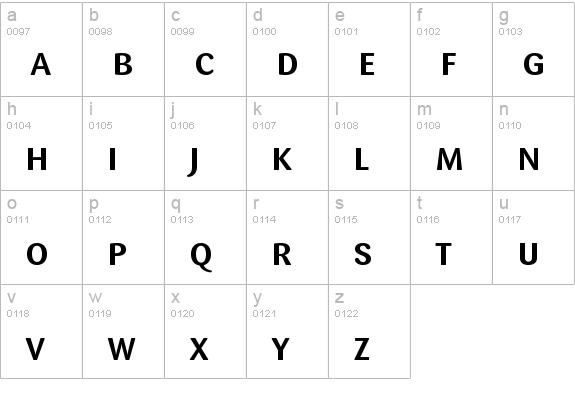
Sari-MediumCaps Font Details
Introducing Sari-MediumCaps, a stunning font that effortlessly balances elegance and modernity. This unique typeface is perfect for adding a touch of sophistication to any design project, whether it be a logo, branding materials, or editorial layouts. With its medium weight and perfectly crafted letterforms, Sari-MediumCaps strikes a harmonious balance between traditional and contemporary design elements. Each character is meticulously designed to exude a sense of timeless beauty, making it a versatile choice for any creative endeavor. One of the most appealing aspects of Sari-MediumCaps is its versatility. It can be easily adapted to suit a wide range of design styles, from classic and luxurious to bold and edgy. The medium capital letters add a touch of distinction to any composition, making your text stand out with confidence and authority. But what truly sets Sari-MediumCaps apart is its availability as a free font for download. That's right, this exceptional typeface is freely available to download at FontsMarket.com. Now, you can elevate your creative projects without breaking the bank, allowing you to bring your visions to life with ease. Whether you're a professional designer or a passionate hobbyist, Sari-MediumCaps provides you with the tools you need to bring your ideas to fruition. Its seamless compatibility with various design software ensures a smooth and efficient workflow, while its timeless aesthetic guarantees that your designs will remain captivating for years to come. In conclusion, Sari-MediumCaps is a must-have font for anyone seeking a blend of elegance and modernity. Its medium capital letters, versatile design, and availability as a free download at FontsMarket.com make it the perfect choice for all your creative endeavors. Elevate your designs to new heights with Sari-MediumCaps and let your creativity soar.